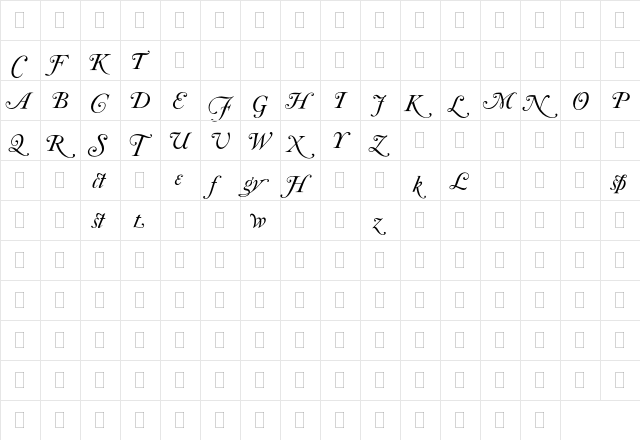
Caslon Italic Swashes Regular
Design Context for Caslon Italic Swashes Typeface
Caslon Italic Swashes flows with the natural rhythm of handwritten lettering, making it ideal for designs that call for warmth and personal expression.
Font Pairing: Combine Caslon Italic Swashes with a simple geometric sans for maximum contrast — the tension between flowing curves and clean structure is a classic typographic pairing.
Pro Tip: Pair Caslon Italic Swashes with a clean sans-serif for supporting text. The contrast between fluid script and geometric structure creates an elegant typographic hierarchy.